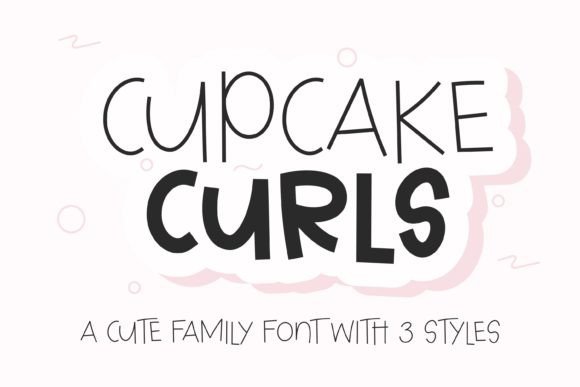
Cupcake Curls Font: The Sweetest Addition to Your Design Projects
Are you looking for a font that can add a touch of sweetness and playfulness to your design projects? Look no further than Cupcake Curls Font! This adorable handwritten family font is perfect for creating unique and eye-catching designs that will leave a lasting impression on your audience. In this article, we’ll dive into the world of Cupcake Curls Font and explore its features, benefits, and uses.
What is Cupcake Curls Font?
Cupcake Curls Font is a cute and relaxed handwritten family font that is designed to bring a touch of whimsy and fun to your designs. Its natural and unique style makes it suitable for a wide range of design ideas, from sweet treats and baking to kids’ parties and more. The font is carefully crafted to create a friendly and approachable feel that will make your designs stand out from the crowd.
Features of Cupcake Curls Font
Cupcake Curls Font boasts a range of features that make it a versatile and practical choice for designers. Some of its key features include:
- Handwritten style: Cupcake Curls Font has a beautiful, handwritten style that gives it a personal and unique touch.
- Natural and relaxed feel: The font has a natural and relaxed feel that makes it perfect for designs that require a friendly and approachable tone.
- Unique and eye-catching: Cupcake Curls Font is designed to stand out from the crowd, making it perfect for designs that require a touch of personality and whimsy.
- Multi-language support: The font supports multiple languages, making it a great choice for designers who work with international clients.
Benefits of Using Cupcake Curls Font
So, why should you choose Cupcake Curls Font for your design projects? Here are just a few benefits of using this amazing font:
- Adds a touch of personality: Cupcake Curls Font adds a touch of personality and whimsy to your designs, making them more engaging and memorable.
- Perfect for a variety of designs: The font is suitable for a wide range of design ideas, from sweet treats and baking to kids’ parties and more.
- Easy to read: Despite its playful style, Cupcake Curls Font is easy to read, making it perfect for designs that require a clear and concise message.
- Great value: Cupcake Curls Font is an affordable and great value font that can be used in a variety of projects, making it a fantastic addition to your design toolkit.
Uses of Cupcake Curls Font
Cupcake Curls Font is a versatile font that can be used in a wide range of design projects, including:
- Baking and sweet treats: The font is perfect for designs related to baking, sweet treats, and desserts.
- Kids’ parties and events: Cupcake Curls Font is great for designing invitations, flyers, and other materials for kids’ parties and events.
- Branding and packaging: The font can be used for branding and packaging designs that require a touch of personality and whimsy.
- Social media graphics: Cupcake Curls Font is perfect for creating social media graphics that require a friendly and approachable tone.
Tips for Using Cupcake Curls Font
Here are a few tips for using Cupcake Curls Font in your design projects:
- Use it with contrasting colors: Cupcake Curls Font looks great when paired with contrasting colors that make it stand out.
- Experiment with different sizes: The font can be used in a variety of sizes, from small captions to large headings.
- Pair it with other fonts: Cupcake Curls Font can be paired with other fonts to create a unique and eye-catching combination.
| Author | BitongType |
In conclusion, Cupcake Curls Font is a cute and relaxed handwritten family font that is perfect for adding a touch of sweetness and playfulness to your design projects. Its natural and unique style makes it suitable for a wide range of design ideas, and its features and benefits make it a great value for designers. Whether you’re designing for baking, kids’ parties, or branding and packaging, Cupcake Curls Font is a great choice. So why not give it a try and see the difference it can make in your designs?
- What is Cupcake Curls Font? Cupcake Curls Font is a cute and relaxed handwritten family font.
- What is Cupcake Curls Font used for? Cupcake Curls Font can be used for a wide range of design projects, including baking, kids’ parties, branding and packaging, and social media graphics.
- Is Cupcake Curls Font easy to read? Yes, despite its playful style, Cupcake Curls Font is easy to read.